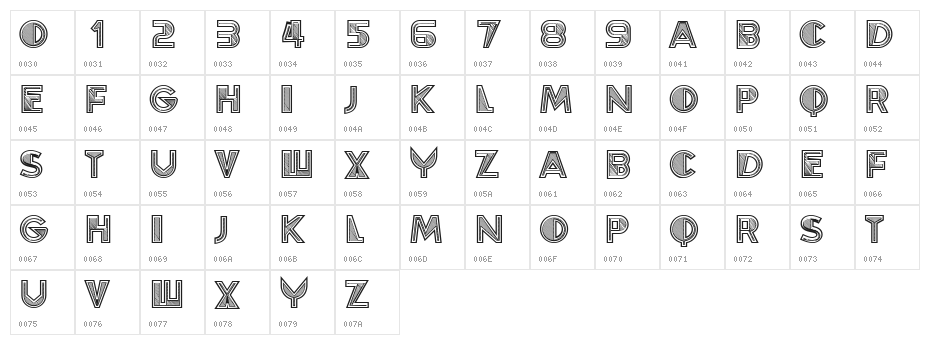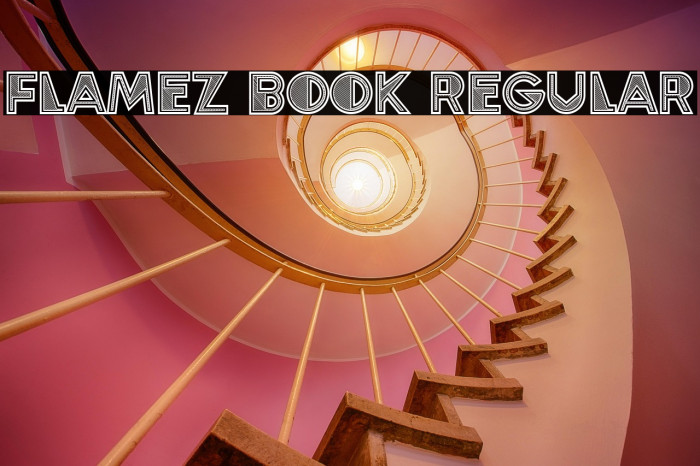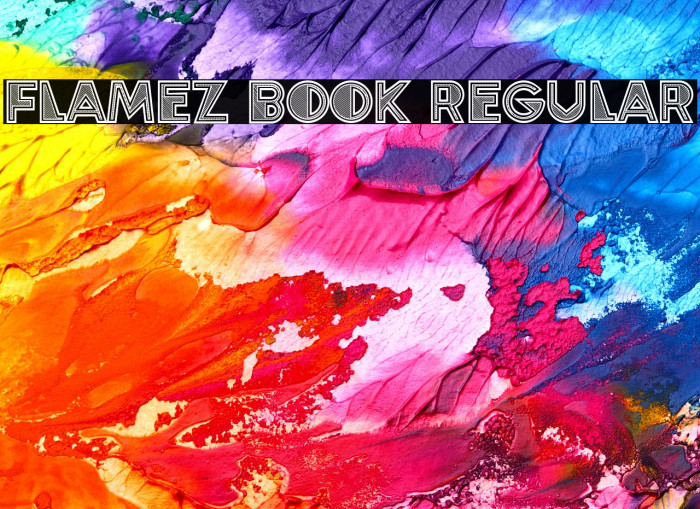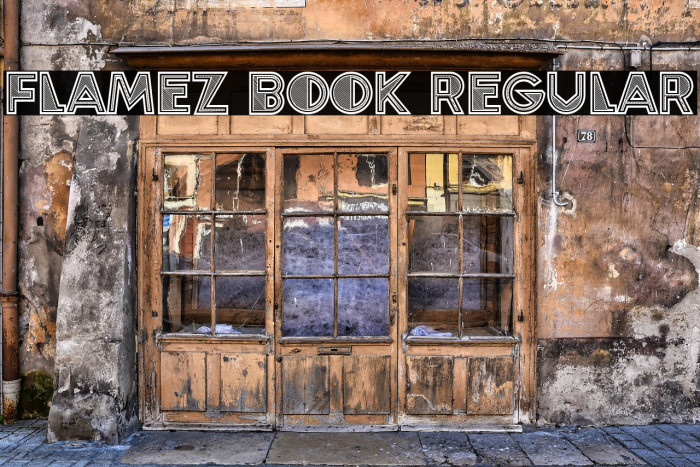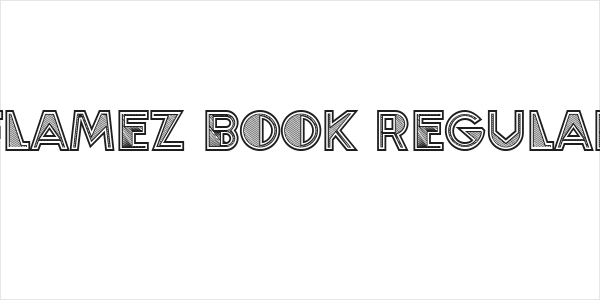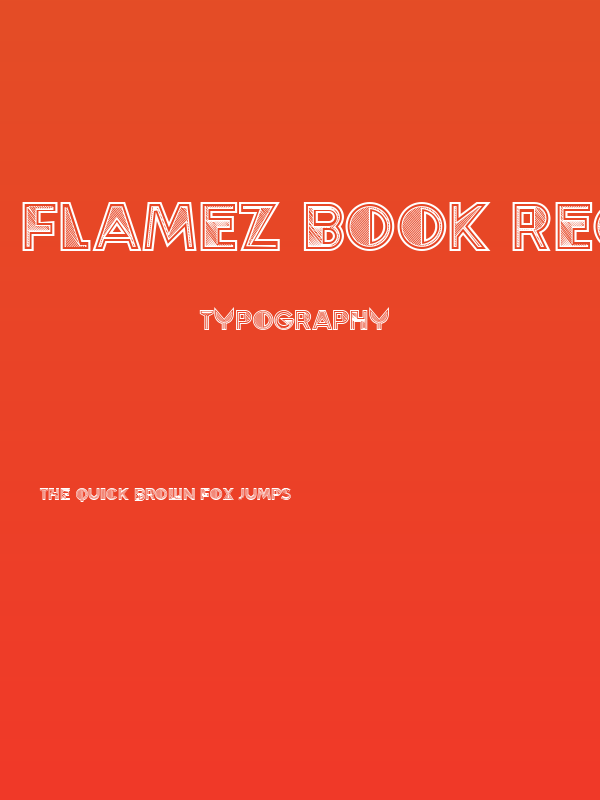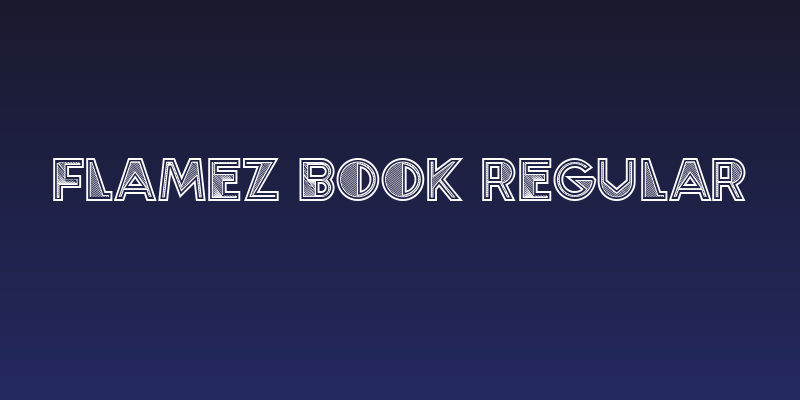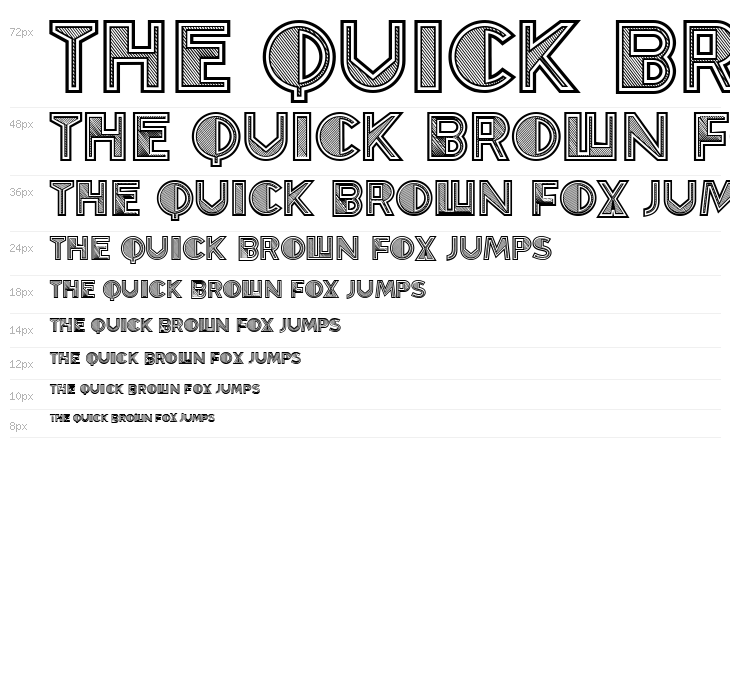
Flamez Book Regular Font
Flamez Book Regular Description
This font features a bold and decorative style with a unique striped pattern within each character. The uppercase letters are designed with a geometric flair, incorporating sharp angles and clean lines. The numbers follow the same stylistic approach, ensuring consistency across all characters. The font's distinct design makes it stand out, with a modern twist on traditional letterforms. The striped pattern adds depth and texture, making it suitable for eye-catching designs.
| Proposed Projects | Ideal for branding, posters, headlines, and any project requiring a bold, modern aesthetic. |